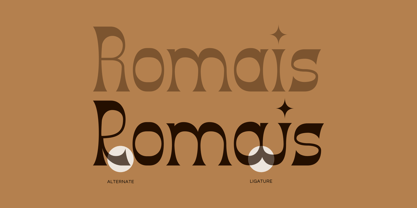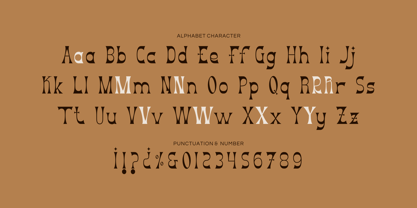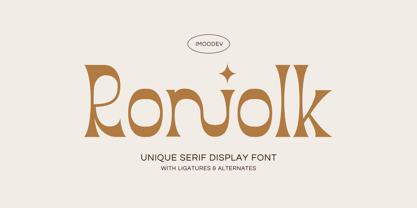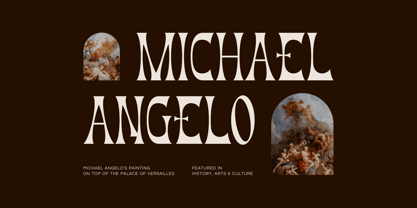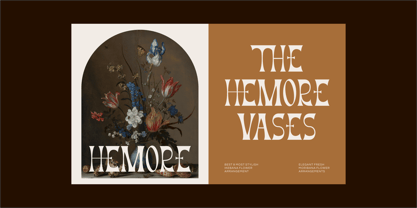
Roniolk
by Imoodev
The Roniolk Font Family was designed by Aulia Savira Putri and published by Imoodev. Roniolk contains 1 styles. More about this family
Roniolk is a highly stylized, dramatic serif style with a gothic-meets-renaissance twist. This font has a strong Baroque or Renaissance-inspired vibes, pairing elegantly with classical art.
This font is perfect for editorial headlines, museum branding, vintage poster designs, theatrical productions, luxury product packaging, book covers for historical fiction or classical literature, boutique branding with an artisanal or retro aesthetic, invitations, signage, etc